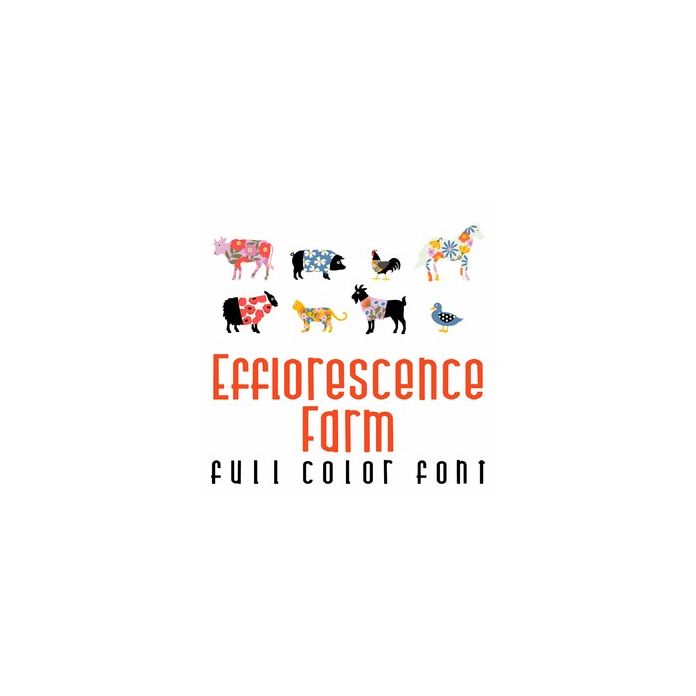
This fun full color font is full of fresh spring and floral themed images perfect for Easter, Spring, planner stickers, scrap book pages, decor, gifts and more!